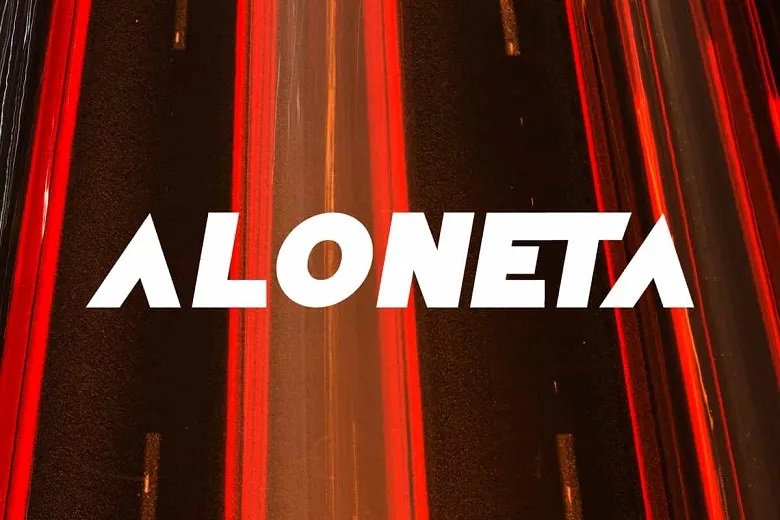
Aloneta Font
Aloneta is a bold modern racing display font. This font is also versatile and easy to read in both digital and print forms as it adds a dynamic touch to your design. Suitable for many designs, such as brand image, custom design, invitation, label, poster, product packaging, quotes, screen printing, signage, website page, and more!
Aloneta Font includes full set of ALL CAPS for Uppercase and Lowercase Basic Characters, Numerals, Punctuation and Symbol. This font also contain Alternate character that can make your design more attractive and will be suitable for many industries, such as accessories, advertising, automotive, cafe, event or festival, fashion, furniture, game, movie, photography, sports, etc.
Aloneta Display Font